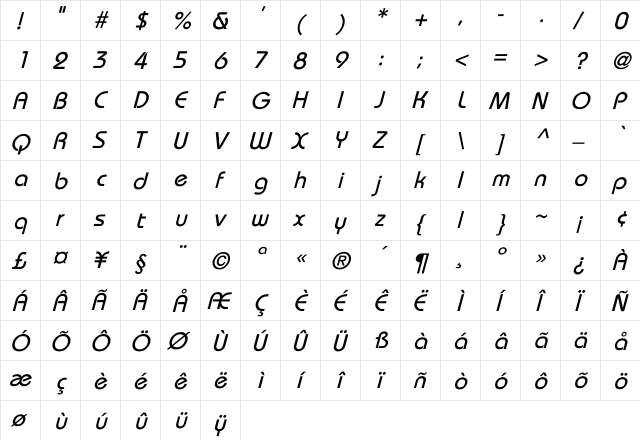
Bauhaus Italic
Design Context for Bauhaus Typeface
Bauhaus offers clean, dependable letterforms without strong stylistic allegiance, making it a practical choice for designers who need flexibility. The dynamic lean of this cut emphasises speed and emphasis in any layout.
Pro Tip: Try Bauhaus for annotation and caption copy alongside an upright companion — the contrast in angle creates a dynamic but ordered typographic system.